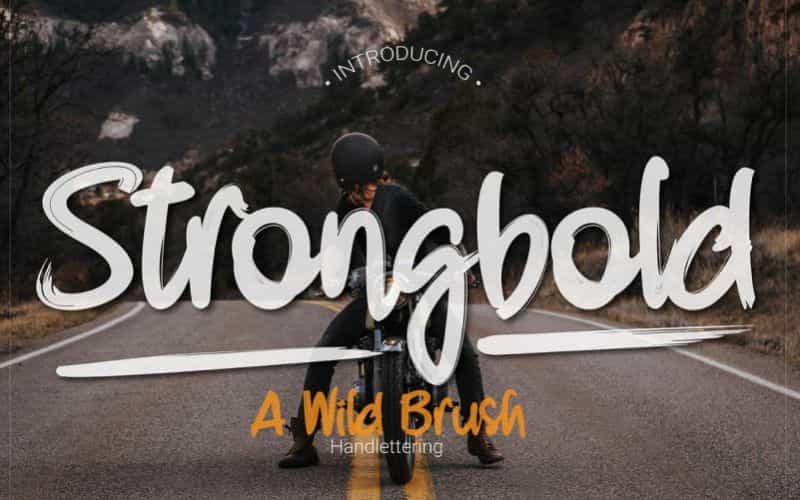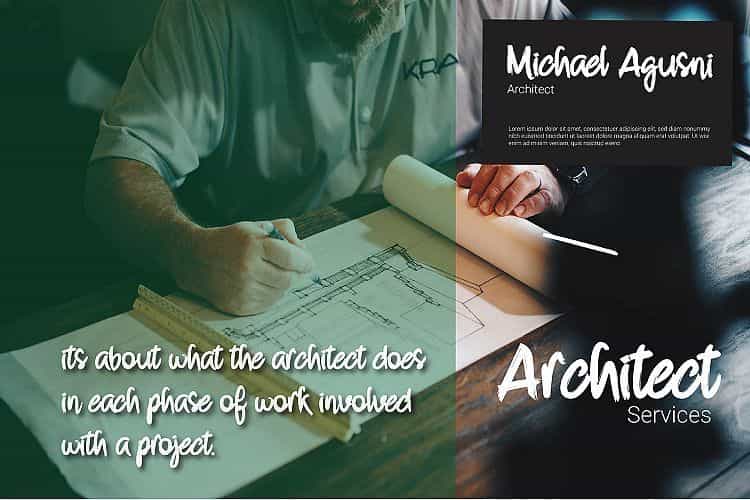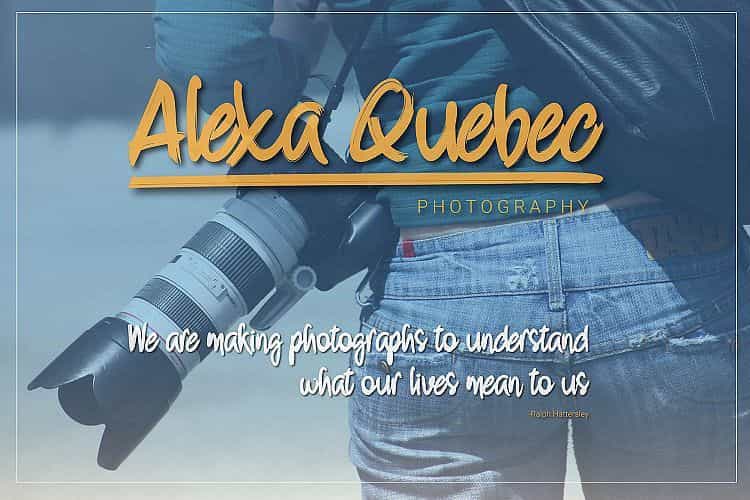
Strongbold! A casual dry brush stroke font, ideal for expressing fun and a relaxed vibe in your designs, this is a great option for giving your design a personal and natural touch. Its will looking nice for grunge brand, vintage and rustic style expression, dapper handwritten font with a personal charm.